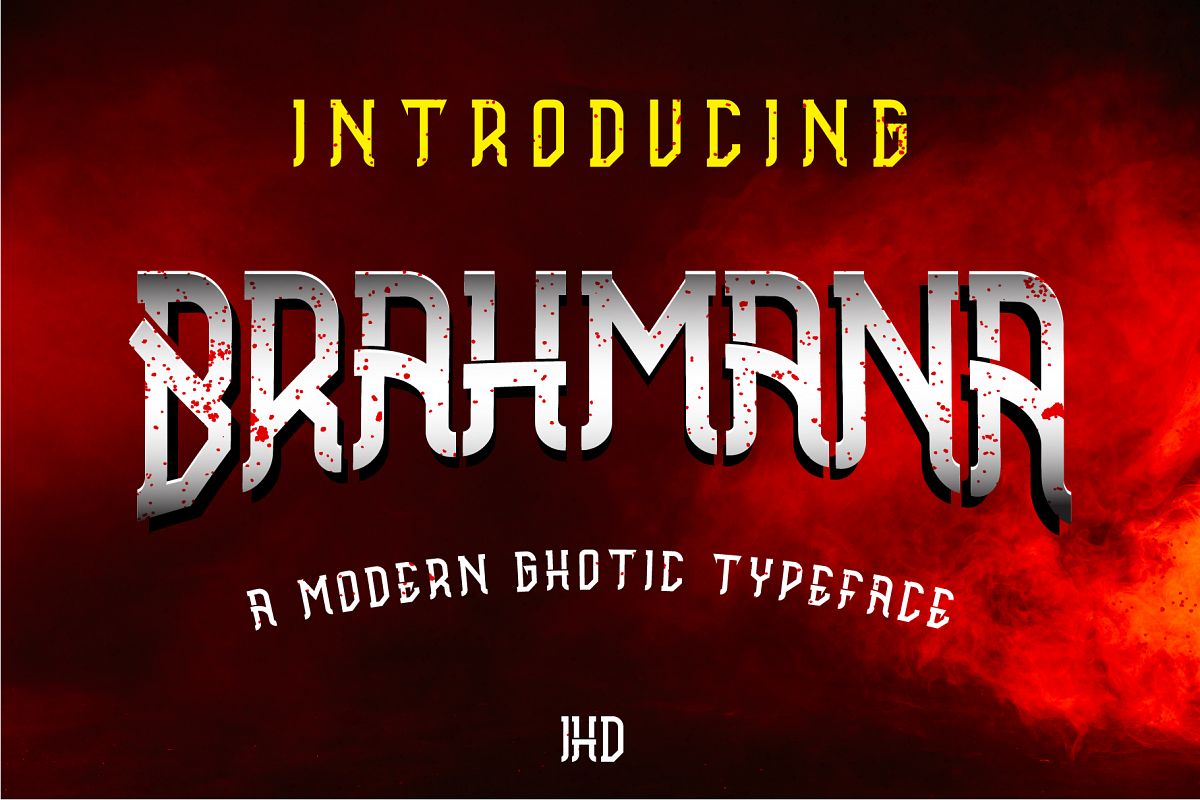
Brahmana - Modern Gothic Serif Sports Typeface
Brahmana
Brahmana is a hand-lettered box and ghotic script.This font is awesome for your creative project such as Logotype, esports, Branding, Packaging, Merchandise,  label, and much more.